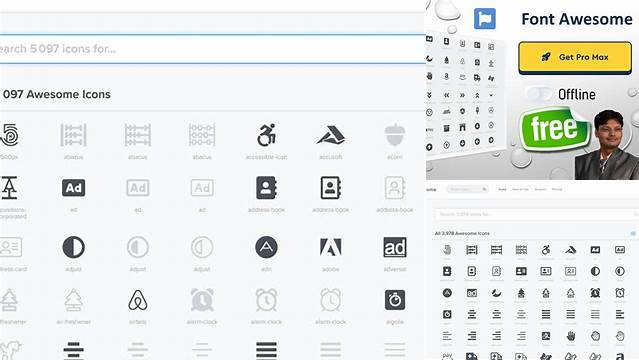
Upgrade Your Site: Best Font Awesome Free Alternatives
Hey everyone, if you're looking to jazz up your website with some cool icons but aren't keen on shelling out cash for Font Awesome, then you're in the right place! Finding a Font Awesome Free Alternative is totally doable, and I'm here to guide you through the options. We'll dive into some awesome (pun intended!) alternatives that are not only free but also packed with features, flexibility, and some serious style. Get ready to revamp your site and make it pop without emptying your wallet. Let's get started and make your website look amazing, alright?
1. Unleashing the Power of Free Icon Packs: Your Gateway to Visual Delight
Alright, guys, let's kick things off by exploring the world of free icon packs – your secret weapon for giving your website a visual makeover. Finding a Font Awesome Free Alternative can open up a whole universe of design possibilities. These icon packs are essentially collections of vector icons, meaning they look sharp and crisp no matter how big or small you make them. That's a huge win for keeping your site looking professional and polished on any device. Think of it like this: instead of just text, you're adding visual cues that instantly communicate what your content is about. A little icon can go a long way in making your site user-friendly and engaging. Plus, the variety available is insane. You can find icons for everything from social media and navigation to custom illustrations that perfectly match your brand's vibe. And the best part? Many of these packs are available under open-source licenses, which means you're free to use them for personal or commercial projects without any worries. Some packs even let you customize the colors and styles of the icons, giving you even more control over your website's look. When you're on the hunt for a Font Awesome Free Alternative, look for packs that offer a wide range of icon categories to suit your content needs. Consider the style of the icons too, making sure they complement your overall website design. Make sure the icons are easy to integrate into your site. Many icon packs come with pre-built CSS classes or web fonts, making it a breeze to add them to your HTML. Some packs provide plugins or extensions that integrate directly with popular website builders, too. Remember, the perfect icon pack should not only look good but also be user-friendly to implement. Consider the licensing. While most free icon packs are open-source, it's always a good idea to review the specific license terms to ensure compliance with your project's requirements. With the right free icon pack, you can easily create a professional website without spending a dime. So go ahead and explore the options – your website will thank you for it!
1.1. Why Choose a Free Icon Pack Over Font Awesome?
So, why would you choose a Font Awesome Free Alternative when Font Awesome itself offers a free version? Well, there are several compelling reasons to consider other options. First off, while Font Awesome's free tier is generous, it's still limited. You might find that the specific icons you need are only available in their paid pro version. This can be a bummer when you're trying to save money. Free icon packs often offer a wider selection of icons right from the start. They can cover a broad range of categories, providing more choices for your design needs. Plus, because these packs are often community-driven, you might find unique icon styles and designs that you won't find in Font Awesome. Another key factor is licensing. While Font Awesome has its own licensing terms, some free icon packs operate under more permissive licenses like MIT or Creative Commons. These licenses provide more freedom for how you use the icons, including in commercial projects. This flexibility is a significant advantage for many web developers and designers. Customization is another area where alternatives shine. Many free icon packs allow you to customize the colors, sizes, and even the strokes of the icons without needing any special software. This can be a huge time-saver and allows you to perfectly match your website's brand. Font Awesome does offer some customization options, but they often require a bit more technical know-how or are limited to the pro version. Furthermore, the community around free icon packs is often very active. You'll find a wealth of tutorials, guides, and support forums where you can get help with integration and customization. This supportive community is a valuable resource for beginners and experienced developers alike. Ultimately, the best choice depends on your specific needs. But if you're looking for a Font Awesome Free Alternative that offers a broader selection, greater flexibility, and more customization options, free icon packs are definitely worth exploring. You might just find the perfect set of icons to elevate your website's design.
1.2. Exploring Popular Free Icon Pack Options
Alright, let's get down to brass tacks and check out some of the coolest Font Awesome Free Alternative icon packs out there. This is where the real fun begins, folks, because we're about to discover a bunch of amazing resources that can seriously level up your website's look. First up, we've got Material Design Icons. This is Google's collection of open-source icons, and they're simply fantastic. The icons are clean, modern, and designed to be easily readable at any size. They cover a vast range of categories and are perfect for any project that needs a touch of Google's signature style. Plus, integrating them into your website is super easy – you can use a CDN or download the files directly. Another great option is Bootstrap Icons. If you're already using the Bootstrap framework, then these icons are a no-brainer. They're designed to be compatible with Bootstrap's grid system and other components, making it a breeze to integrate them into your design. They offer a good balance of simplicity and versatility and are constantly updated with new icons. Then there's Feather Icons. These guys offer a beautifully minimalist collection of icons that are perfect for a clean, modern aesthetic. They're all designed on a 24x24 grid, ensuring they're consistent and easy to scale. They're also lightweight, which means they won't slow down your website's performance. If you're looking for something more illustrative, check out Heroicons. These icons are designed by the makers of Tailwind CSS and offer a blend of simplicity and detail. They come in two styles: solid and outline, giving you plenty of design options. They're an excellent choice for adding visual interest to your website without being overwhelming. To find the best Font Awesome Free Alternative, it's essential to consider your specific needs. Think about the style of your website, the types of icons you need, and how easy the integration will be. Whether you're after a minimalist, modern, or illustrative look, these icon packs have something for everyone. So go ahead, give them a try, and watch your website transform!
1.3. Comparing Features and Licensing of Free Icon Packs
Let's dive deeper into the nitty-gritty and compare the features and licensing of different free icon packs to help you choose the perfect Font Awesome Free Alternative. First, let's talk about the key features you should look for. The variety of icons is crucial. The best icon packs offer a wide selection across various categories, from social media and navigation to general symbols and custom illustrations. Think about what your website needs and ensure the pack has the icons to match. The style of the icons matters too. Do you prefer a minimalist, outline, or solid style? A cohesive style will make your website look more professional. Customization options are also important. Can you easily change the size, color, or stroke of the icons? Some packs offer built-in CSS classes or allow you to use CSS to customize them, giving you more control over the design. Integration ease is another factor. How easy is it to add these icons to your website? Does the pack offer a CDN, web fonts, or other simple integration methods? Consider the performance impact. Are the icons lightweight and optimized for web use? Heavy icons can slow down your website's load time. Regarding licensing, this is where things get interesting. Most free icon packs use open-source licenses, such as MIT, Creative Commons, or SIL Open Font License. These licenses typically allow you to use the icons for both personal and commercial projects, but it's always best to double-check the specific terms of the license. Some licenses may require attribution, meaning you need to credit the icon pack's creator. Make sure you understand the requirements to avoid any legal issues. When comparing icon packs, look at the features and licensing that best meet your needs. Some icon packs may focus on a specific design style. Other packs may have a wider range of icon categories. Some may offer more customization options. The Font Awesome Free Alternative you choose should align with your project's design goals and legal requirements. This detailed comparison will help you make an informed decision. Ensure you consider the license terms to be clear on what you are allowed to do with the icons. This helps you choose the perfect free icon pack to enhance your website's design!
2. Unveiling Web Fonts: The Stylish and Versatile Alternative
Alright, let's shift gears and explore another awesome Font Awesome Free Alternative: web fonts. You might be wondering what exactly web fonts have to do with icons. Well, some web fonts are designed to include icons as characters. It's like having a whole library of icons ready to go, just by using the right font. This approach brings some unique benefits, and it can really streamline your workflow. Web fonts are a really cool way to add icons to your website. Let's break down why web fonts are a great alternative to Font Awesome and how you can use them effectively. Web fonts transform the way you handle icons on your site. Let's dive in.
2.1. Understanding Web Fonts and Their Icon Capabilities
Let's get down to the basics and understand what web fonts are and how they can function as a Font Awesome Free Alternative. Essentially, web fonts are fonts that are specifically designed to be used on the web. They're stored on a server and downloaded by a user's browser when they visit your website. This means you can use any font you want, regardless of whether the user has it installed on their computer. However, what's super interesting for our discussion is that some web fonts are packed with icons instead of regular characters. These are called icon fonts or web font icons. They work by assigning each icon to a specific character in the font. So, instead of typing a letter, you type a code that represents an icon. The browser then displays the corresponding icon. This approach has several advantages. First, it allows you to scale the icons without losing quality because they're vector-based. Secondly, you can easily change their color and size using CSS. Thirdly, it simplifies the process of adding icons to your HTML. Instead of using image files or SVG code, you simply add a class or a special character. Popular Font Awesome Free Alternative web fonts, such as Fontello or IcoMoon, provide you with pre-packaged icon fonts. These services let you select the icons you need and generate a custom font file that you can download and use on your website. The benefit of web font icons is their versatility. They can be used in any situation where you would normally use an image icon. You can use them for social media icons, navigation menus, buttons, and more. When selecting a web font, it's essential to ensure it supports the icons you need. Check the font's documentation or demo pages to see the available icons. Also, consider the font's licensing terms to ensure it's suitable for your project. Understanding the ins and outs of web fonts can transform your approach to icons. It offers a seamless and flexible approach that will make your website development a breeze.
2.2. Exploring Popular Web Font Icon Libraries
Alright, let's explore some of the best web font icon libraries that serve as excellent Font Awesome Free Alternative options. They can help you add stylish icons to your website without breaking the bank. One of the most popular choices is Fontello. Fontello is an icon font generator that lets you select icons from a variety of open-source icon sets. You can pick and choose the icons you need, then download a custom font file and a stylesheet. It's a great way to get a custom icon set tailored to your exact needs. Another fantastic option is IcoMoon. IcoMoon offers a vast library of icons and a handy web app where you can easily browse, select, and download your custom font files. They also provide a useful icon organizer and an SVG to icon font converter. Material Design Icons is also a superb option, especially if you like Google's design style. While it is a collection of SVG icons, it's easy to convert these to a web font. The material design icons are very consistent and clean, making them a great choice for any modern website. They are a superb alternative to Font Awesome Free Alternative. When choosing a web font icon library, think about your design style and the icons you need. Check out the available icons and make sure they match your website's overall look and feel. Consider whether you prefer a minimalist, flat, or detailed style. Check out the licensing terms, making sure they align with your project's requirements. The main advantages of web fonts are scalability and customization. Web fonts are vector-based, so the icons always look crisp and sharp, no matter the size. It's also easy to change their color and size with CSS. These web fonts are a great way to add a professional touch to your website and make it more visually appealing. So, go ahead, check out these web font icon libraries and see which one best suits your needs! These options can make your website more vibrant and easier to navigate for your audience.
2.3. Implementing Web Font Icons on Your Website
Let's dive into how to implement web font icons on your website, making it an effective Font Awesome Free Alternative. First, you'll need to choose a web font icon library. Some of the best options include Fontello and IcoMoon. Once you have chosen a library, you'll typically need to download the font files and a stylesheet. The stylesheet contains CSS rules that link each icon to its corresponding character or class name. Next, you'll need to upload the font files to your website's server. Usually, you'll place the font files in a dedicated folder, such as 'fonts' or 'assets/fonts'. Then, you'll link the stylesheet to your HTML file using the <link> tag in the <head> section of your HTML code. Alternatively, you can import the CSS file into your existing CSS file using the @import rule. Once the stylesheet is linked, you can start using the icons in your HTML. The most common way to use web font icons is by adding a class to an HTML element, such as an <i> or <span> tag. The class name corresponds to the icon you want to display. For example, if you're using Font Awesome, you might add the class fas fa-home to display a home icon. The fas indicates the font, and fa-home specifies the icon. If you're using a custom font, you'll use the class names that are provided in the stylesheet. You can also use CSS to style the icons, changing their size, color, and other properties. For example, you can use the font-size property to change the icon's size, the color property to change its color, and other CSS properties to customize its appearance. It's all up to you on how to implement these. When implementing web font icons, make sure you follow the library's documentation for specific instructions. This will ensure that you correctly include the font files and use the correct class names. Test your implementation in different browsers and on different devices to ensure the icons display correctly. With a little effort, you can easily incorporate web font icons into your website to create a visually appealing and user-friendly design.
5.3. Making the Final Decision and Implementing Your Chosen Alternative
Alright, you've done your homework, compared the options, and now it's time to make the final decision and implement your chosen Font Awesome Free Alternative. This is where your hard work pays off, as you bring your website's design vision to life. First, revisit your requirements and the comparison table you created. Remind yourself of the pros and cons of each alternative. Make sure that the chosen option aligns with your design and technical requirements. Choose the alternative that best meets your needs. Once you've made your decision, download the necessary files. Depending on the alternative, you'll need to download font files, CSS stylesheets, or SVG icon files. Refer to the chosen alternative's documentation for detailed instructions. Integrate the alternative into your website. If you're using a web font, link the stylesheet to your HTML. If you're using SVG icons, embed them into your HTML code. Follow the documentation's instructions for installation. Implement the icons. This usually involves adding CSS classes to your HTML elements. Add the appropriate classes to display the icons. Style the icons. Use CSS to change the size, color, and other properties of your icons. Ensure that your icons match your website's design. Once implemented, test your icons on different devices and browsers. Ensure that the icons display correctly. You might need to adjust your CSS. Ensure a consistent user experience across all devices. After the implementation, optimize the performance of your icons. Compress your SVG icons and use techniques like CSS sprites to reduce the number of HTTP requests. This will improve your website's loading time. Finally, celebrate the new look! Your website will look more modern and visually appealing. Enjoy the improved user experience! By following these steps, you can confidently make the final decision. You can successfully implement your chosen Font Awesome Free Alternative and give your website a fresh new look. Be sure to follow the documentation of your chosen option. With a little effort, you can transform your website's design. You can give it a professional and visually appealing look! Go, design your website!